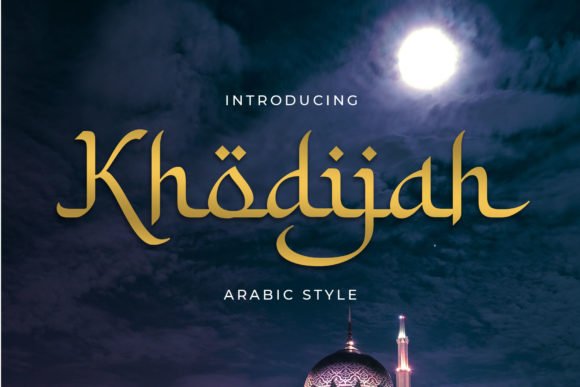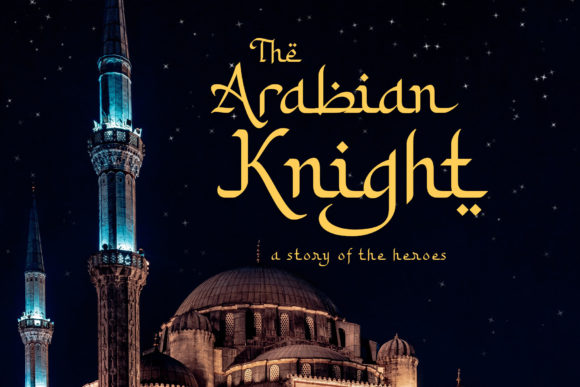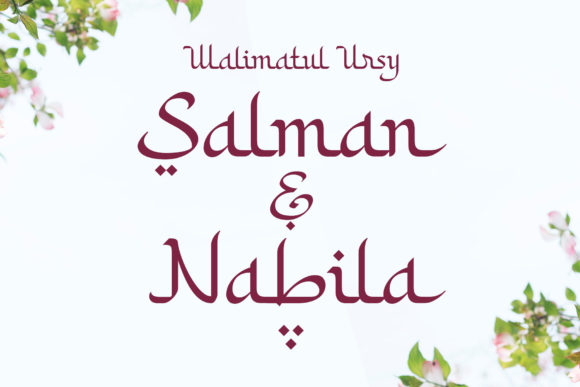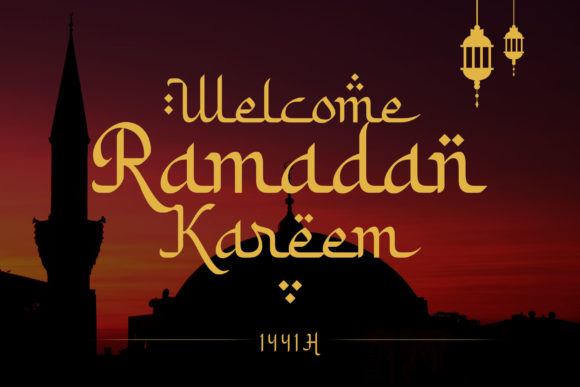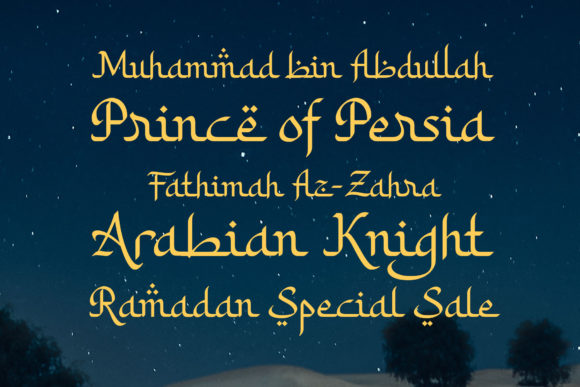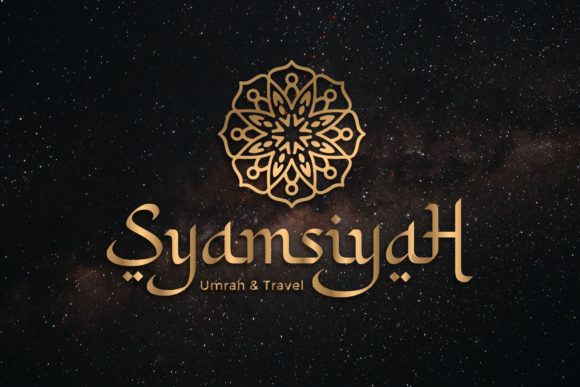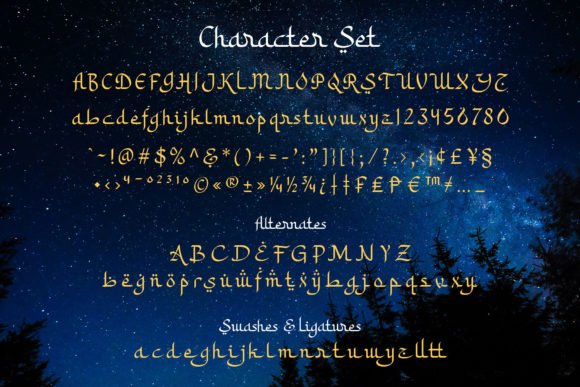
Unleash Your Creativity with Khodijah Font
Have you ever stared at a blank canvas, a stack of craft supplies, or a blank sheet of paper, waiting for inspiration to strike? That’s exactly what happened to me the other day. I was brainstorming ideas for a DIY project when I stumbled upon the perfect font to bring my vision to life – Khodijah Font. This gorgeous display font exudes charm and elegance, making it the perfect addition to any handmade project.
Khodijah Font is more than just a pretty face; it’s a valuable tool for designers and crafters alike. With its unique and stylish aesthetic, it can instantly elevate any DIY project, from custom invitations to personalized home decor. Whether you’re a seasoned designer or a crafty hobbyist, Khodijah Font is sure to inspire your next creative endeavor.
Khodijah Font Key Features
- Font Family: Khodijah Font is a unique, elegant script font designed for various applications.
- Size and Resolution: Offers a range of font sizes, with a recommended resolution of 300 DPI for optimal quality.
- Unique Characteristics: Features a beautiful, flowing script design with intricate details and ornaments, perfect for creating elegant and sophisticated designs.
- Language Support: Supports a wide range of languages, including Latin, Arabic, and many others.
- Font Styles: Includes multiple font styles, such as Regular, Italic, Bold, and Bold Italic, to cater to various design needs.
Khodijah Font Review
Overall, the Khodijah Font is a unique and captivating script font that brings an exotic flair to any design project. ✨ Its intricate strokes and flourishes are reminiscent of traditional Middle Eastern calligraphy, making it perfect for creating a sense of cultural heritage and mystique.
- Expressive and elegant lines create a beautiful visual flow, making it suitable for invitations, wedding stationery, and luxury branding.
- The font’s ornate details can add a touch of sophistication and refinement to any design.
- Khodijah Font is available in various font styles, including regular, bold, and italic, providing designers with a range of options to choose from.
However, there are some limitations to consider. ⚠️ The font’s intricate details can sometimes make it difficult to read at small sizes, and its complexity may require additional design work to balance and harmonize with other elements. Additionally, the font’s uniqueness can be a double-edged sword – while it stands out, it may not be to everyone’s taste.
Overall, I think the Khodijah Font is a great choice for designers looking to add a touch of elegance and sophistication to their projects. With careful consideration and balancing, its unique features can be a real asset in creating memorable and impactful designs.
The Khodijah font is ideal for creating elegant and sophisticated designs. To get the most out of it, use it for:
- Luxury brand logos and marketing materials.
- High-end event invitations and announcements.
The Khodijah font is commonly used for:
- Formal writing and printing.
- High-end product packaging and branding.
- Special occasion invitations and announcements.
Alternatives to Khodijah Font
Noto Naskh Arabic
Noto Naskh Arabic is an open-source, modern Arabic font designed to be highly legible. It is ideal for body text, headings, and titles where readability is crucial. Noto Naskh Arabic is more versatile than Khodijah Font, supporting a wider range of languages and providing better support for Arabic ligatures.
Amiri
Amiri is a modern Arabic font designed for both print and digital media. It is suitable for use in academic, technical, and professional contexts where a high level of readability and precision is required. Amiri is more elegant than Khodijah Font, with a focus on clear typography and a wide range of language support.
Scheherazade
Scheherazade is a high-quality Arabic font designed for use in books, magazines, and other publications. It is ideal for use in situations where a traditional Arabic aesthetic is desired, with a focus on classic typography and a warm, inviting feel. Scheherazade is more ornate than Khodijah Font, with intricate details and flourishes.
Hacen
Hacen is a modern Arabic font designed for use in digital media, including websites, apps, and e-books. It is suitable for use in situations where a clean, modern aesthetic is desired, with a focus on clear typography and a wide range of language support. Hacen is more minimalist than Khodijah Font, with a focus on simplicity and ease of use.